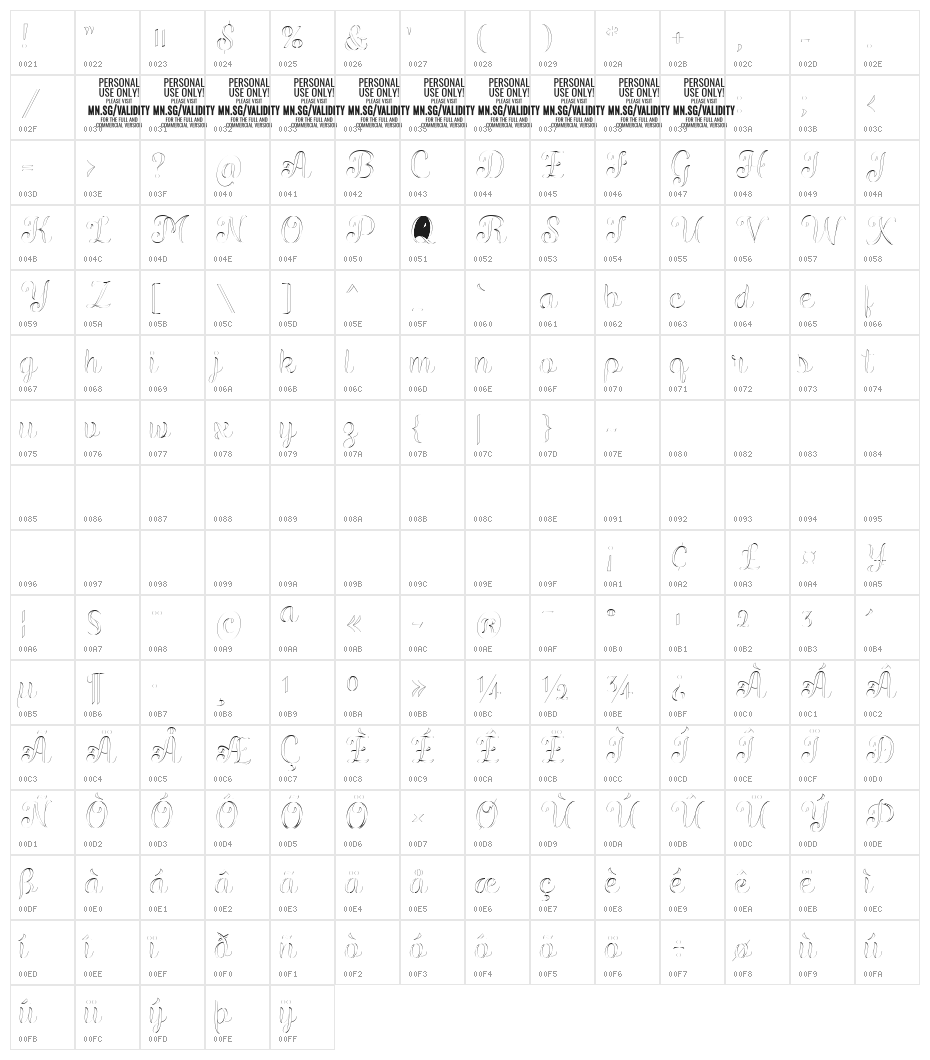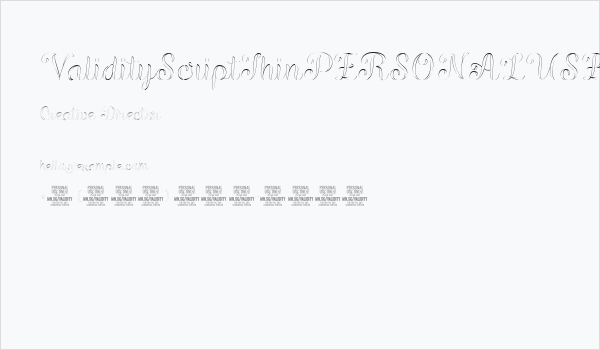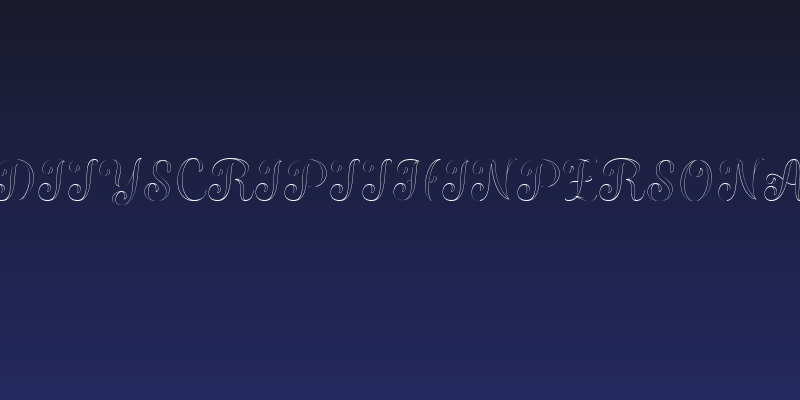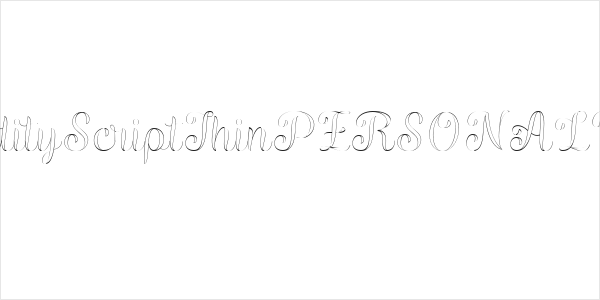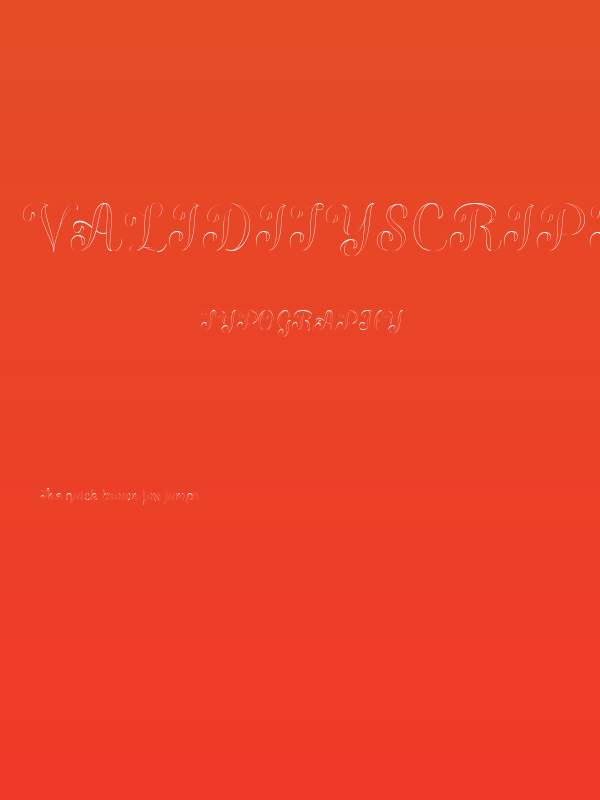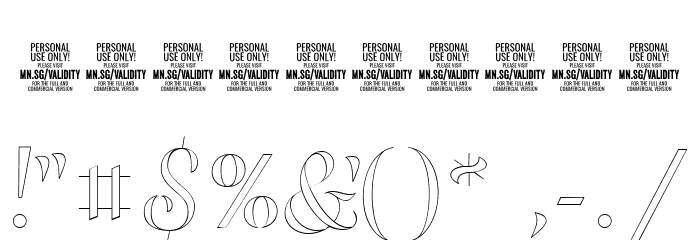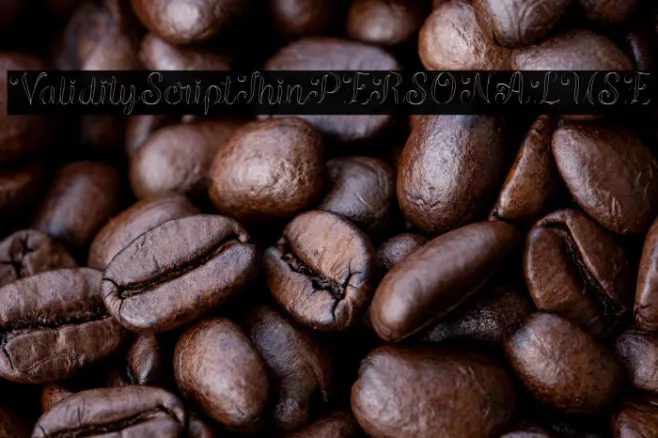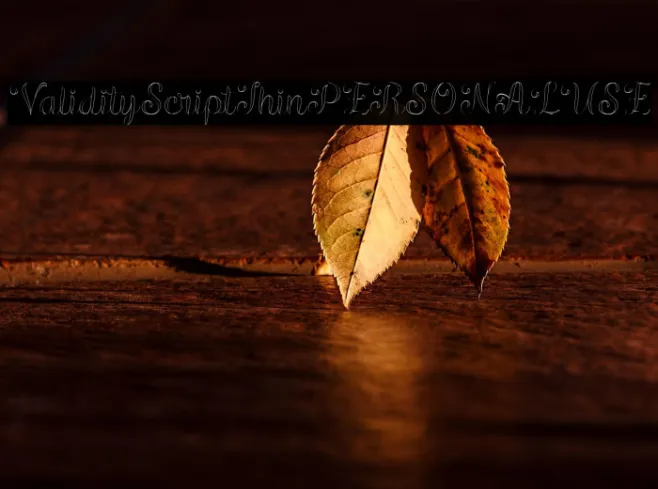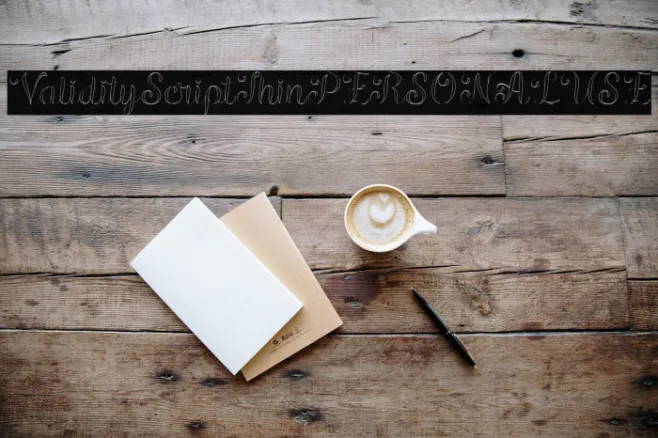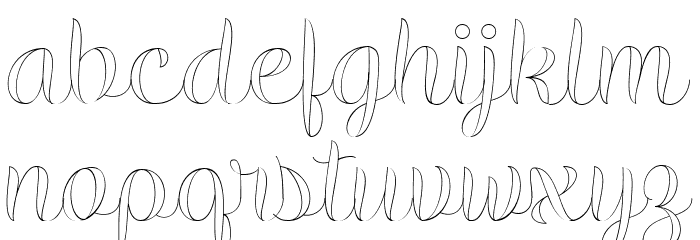
ValidityScriptThinPERSONALUSE Font
ValidityScriptThinPERSONALUSE Description
This font features a delicate and elegant script style with thin, flowing lines that create a sense of fluidity and grace. The uppercase letters are adorned with subtle flourishes, adding a touch of sophistication, while the lowercase letters maintain a consistent, smooth curvature. The numerals and special characters are designed to complement the overall aesthetic, ensuring a cohesive appearance. The font's thin strokes and airy design make it ideal for projects that require a touch of elegance and refinement.